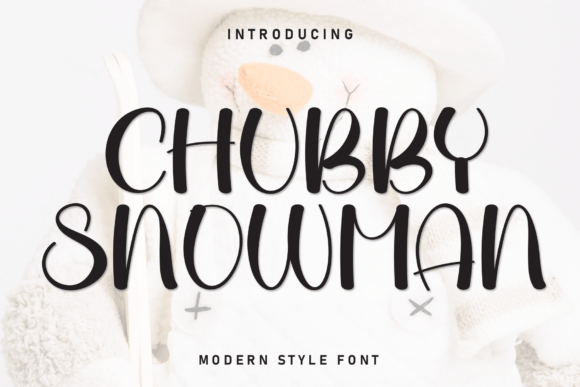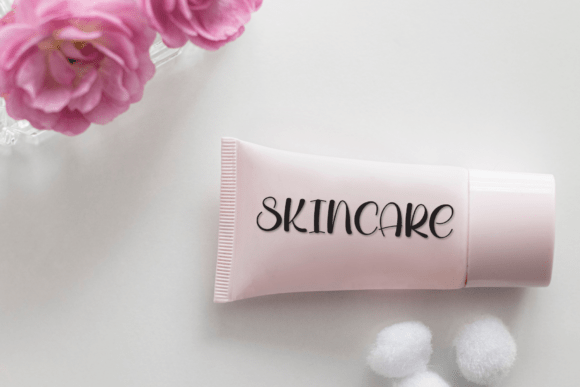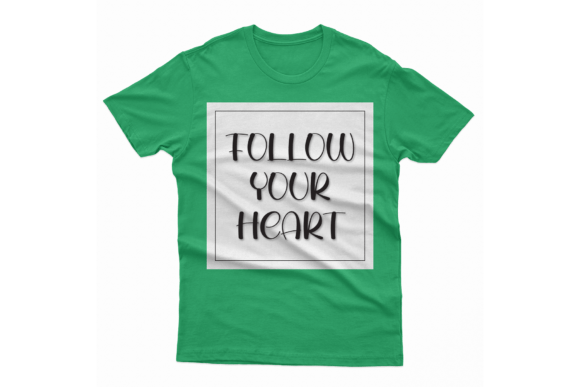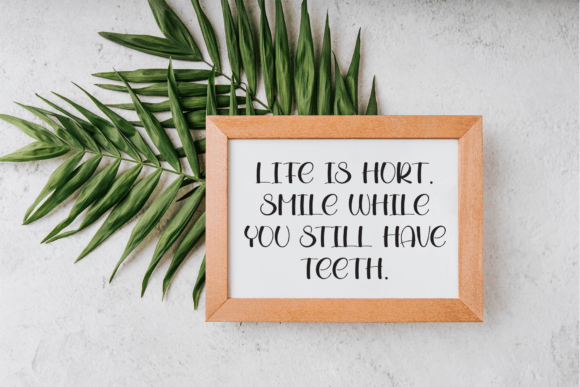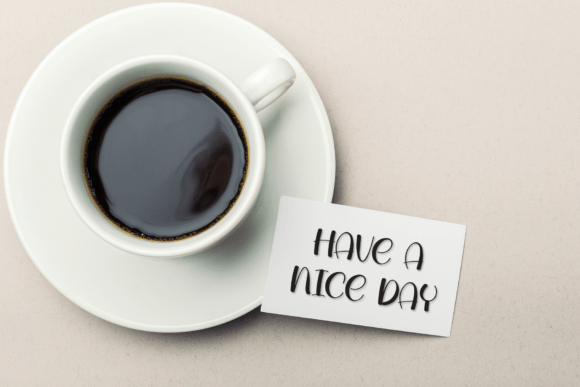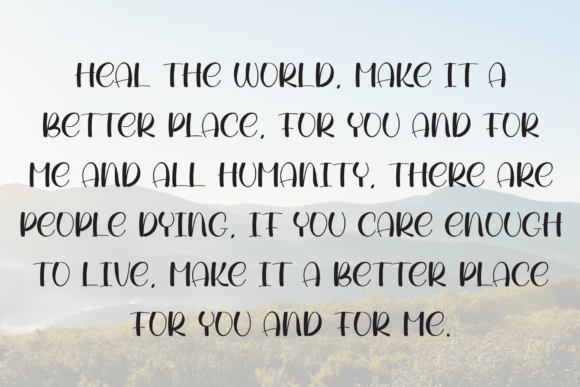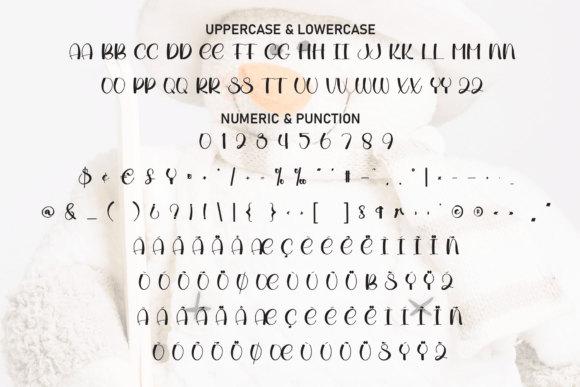
Designing with a Side of Warmth: The Chubby Snowman Font
It’s a moment we’ve all experienced: staring blankly at our screens, searching for the perfect font to convey the tone of our design project. But what if that elusive font was hiding in plain sight, waiting to bring a smile to our faces and a touch of warmth to our creations? Enter the Chubby Snowman Font, a charming display font that effortlessly blends modern simplicity with a playful, approachable vibe.
Perfect for designers seeking to add a friendly touch to their projects, the Chubby Snowman Font is a valuable asset for anyone looking to elevate their branding, packaging, or social media graphics. With its clean shapes, soft edges, and well-balanced letterforms, this font delivers both readability and personality, making it an ideal choice for creatives of all levels.
Chubby Snowman Font Key Features
- Font Family: Chubby Snowman
- Unique Characteristics: Chubby Snowman features a playful, rounded design with a subtle snowman theme, making it suitable for festive and winter-themed projects
Designer Review: Chubby Snowman Font
I recently had the chance to work with the Chubby Snowman Font, and I must say it’s a unique and quirky addition to any design project. ✨ The font’s playful, rounded design makes it perfect for projects that require a lighthearted and festive touch.
Here are some of the things that work well with the Chubby Snowman Font:
- ✨ Its versatility – the font can be used for a wide range of projects, from holiday cards to children’s book illustrations.
- ✨ Its consistency – the font’s rounded design makes it easy to read and use, even at small font sizes.
- ✨ Its expressiveness – the font’s playful nature makes it perfect for conveying a sense of fun and whimsy.
However, there are a few limitations to be aware of:
- ⚠️ The font may not be suitable for projects that require a more serious or formal tone.
- ⚠️ The font’s rounded design can make it difficult to read at very small font sizes.
- ⚠️ The font may not be as suitable for projects that require a lot of technical or scientific information.
Overall, I think the Chubby Snowman Font is a great addition to any designer’s toolkit. While it may have some limitations, its unique design and versatility make it a great choice for projects that require a playful and festive touch.
The Chubby Snowman Font is ideal for creating playful and festive designs, such as:
- Holiday-themed social media posts
- Winter-themed flyers and brochures
- Children’s party invitations
Alternatives to Chubby Snowman Font
The Great Vibes Font is a fun, modern, and elegant script font. It’s perfect for creating invitations, social media posts, and advertisements that need a touch of playfulness and sophistication. This font is more versatile than Chubby Snowman Font and can be used for a wide range of projects.
Comparison to Chubby Snowman Font: Great Vibes Font has a more refined and sophisticated look, whereas Chubby Snowman Font is more playful and cartoonish.
The Crimson Text Font is a classic serif font with a vintage touch. It’s ideal for creating elegant and sophisticated designs, such as book covers, magazine layouts, and business cards. This font is more formal than Chubby Snowman Font and can be used for projects that require a professional look.
Comparison to Chubby Snowman Font: Crimson Text Font has a more traditional and formal look, whereas Chubby Snowman Font is more playful and informal.
The Carolyna Pro Font is a modern script font with a feminine touch. It’s perfect for creating elegant and sophisticated designs, such as wedding invitations, baby shower invitations, and feminine product packaging. This font is more elegant and sophisticated than Chubby Snowman Font and can be used for projects that require a touch of luxury.
What is the recommended font size for the Chubby Snowman Font?
The recommended font size for the Chubby Snowman Font is between 12pt and 24pt. However, you can experiment with different font sizes to achieve the desired visual effect. Keep in mind that larger font sizes may affect the readability and legibility of the text.